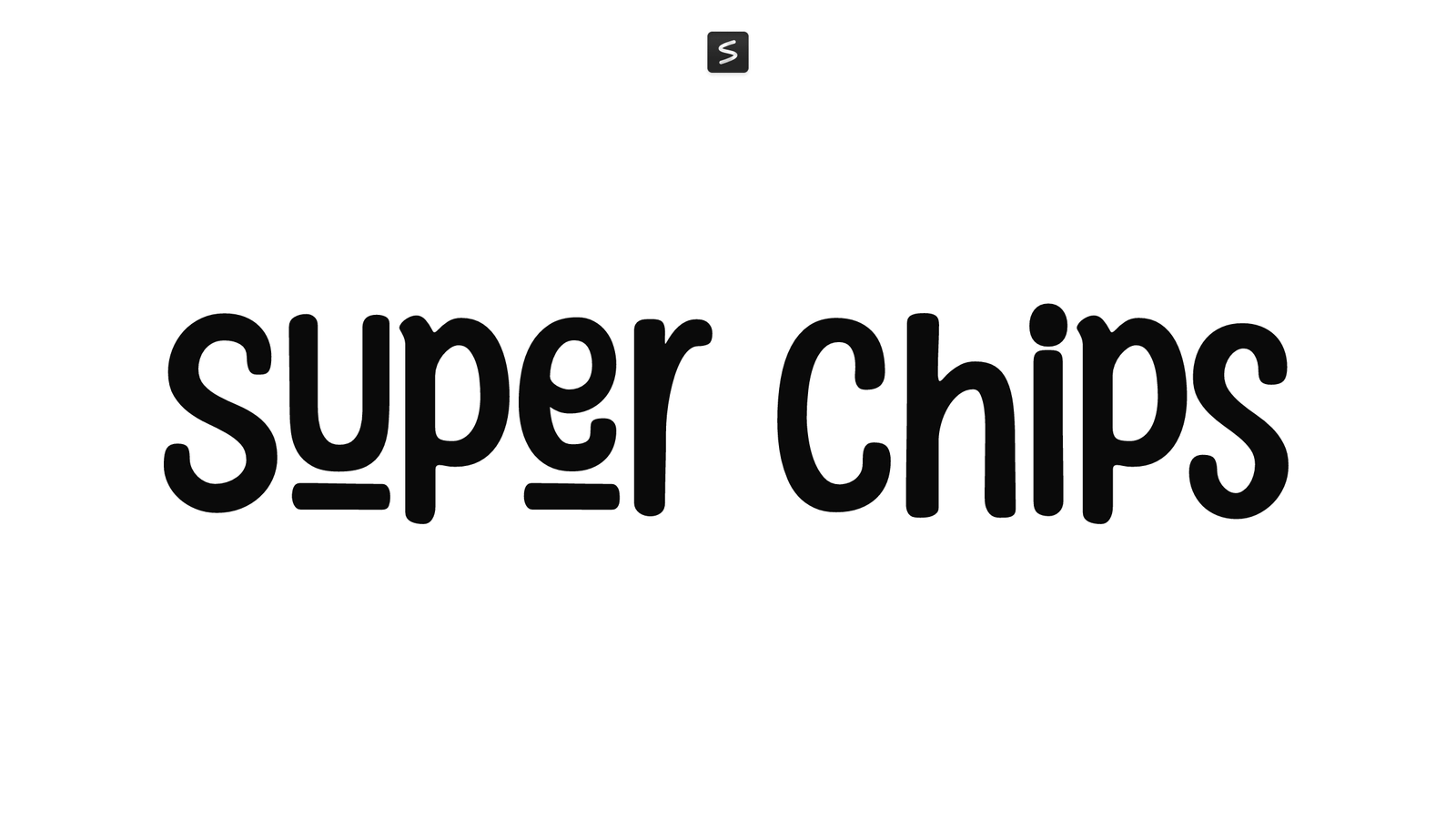
Super Chips is a bold, rounded sans-serif designed by fsuarez913. Its soft corners and consistent weight give it a friendly, approachable character that feels at home in casual and playful contexts. The rounded geometry creates a cartoon-like warmth without veering into overly cute territory.
This font works well for posters, social media graphics, indie game UI, packaging, and any project that needs a lighthearted but legible typeface. The even weight and open letterforms make it readable at both large and small sizes, while the rounded edges add a distinctly approachable feel to headlines and body text alike.
If you want something that reads as friendly and casual without looking forced or overwrought, Super Chips is a straightforward choice.